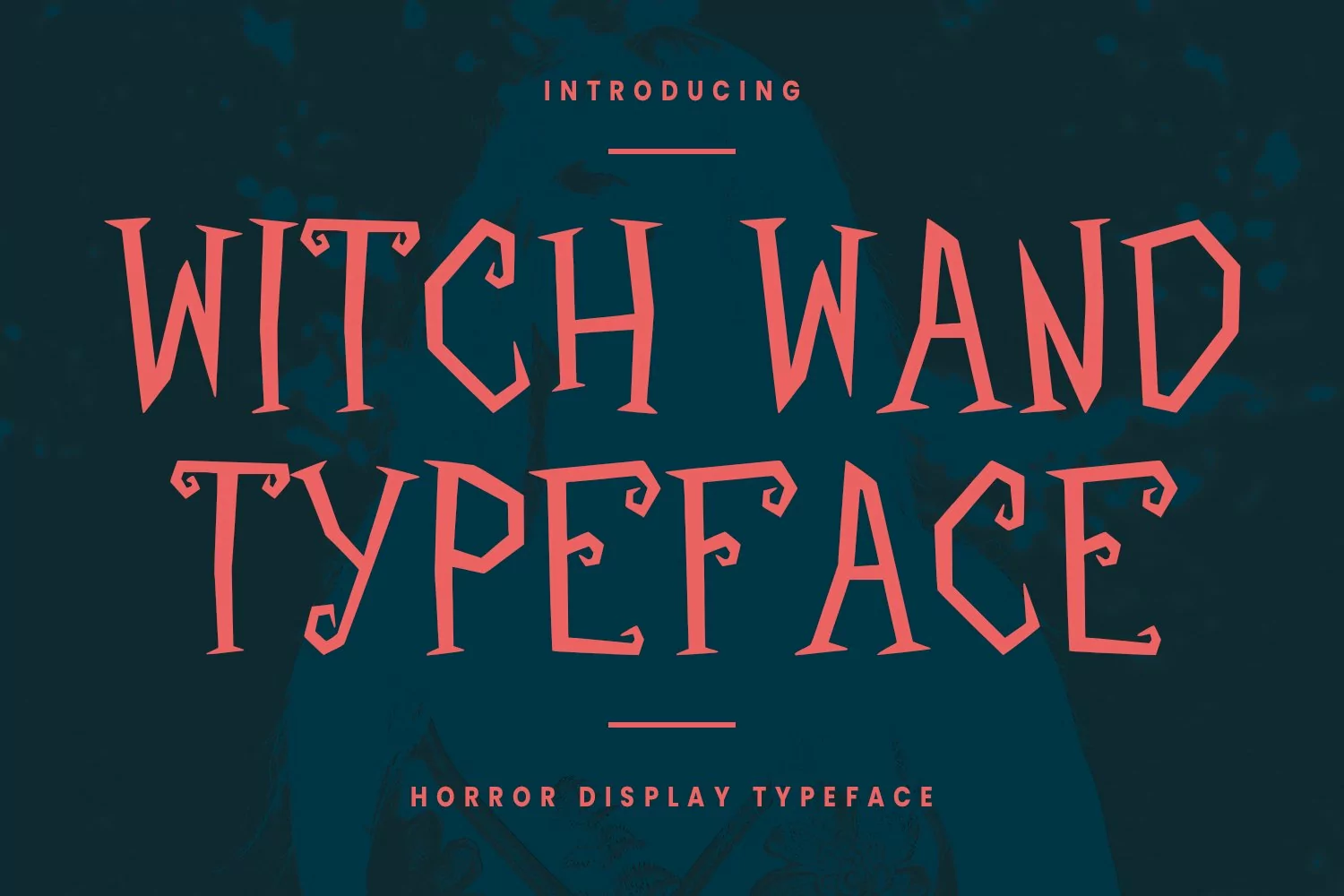
Witch Wand halloween display font. Heavy stroke, fun character with a bit of ligatures. To give you an extra creative work. Witch Wand halloween display font support multilingual more than 100+ language. This font is good for logo design, Social media, Movie Titles, Books Titles, a short text even a long text letter and good for your secondary text font with script or serif. Make a stunning work with Witch Wand halloween display font.
Witch Wand